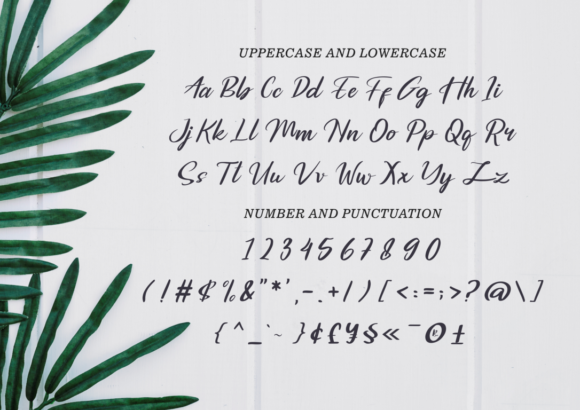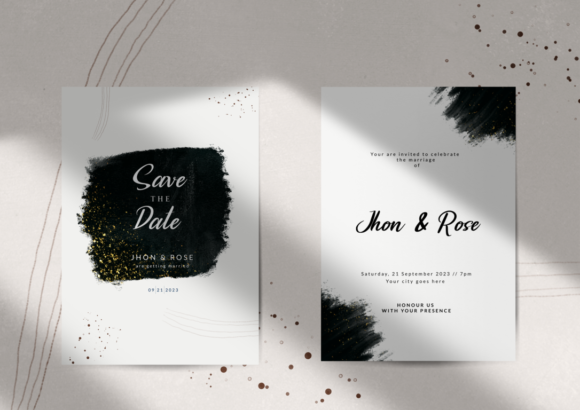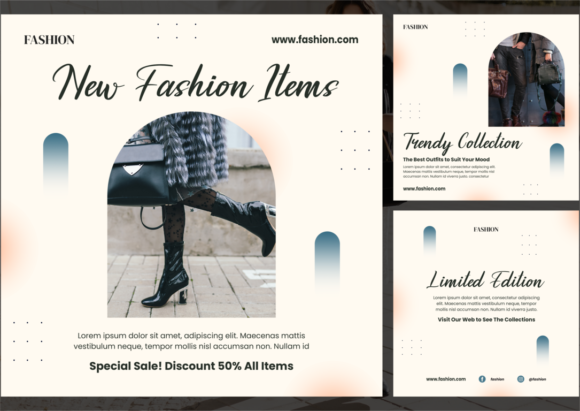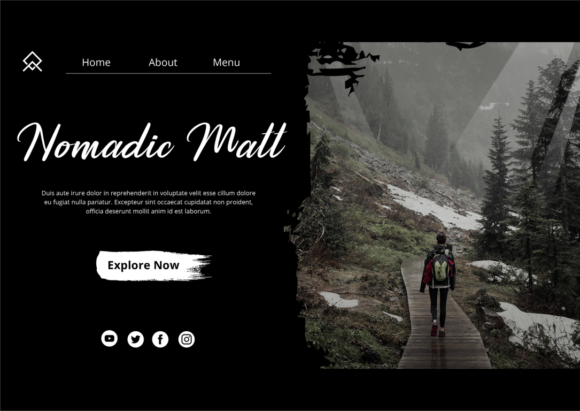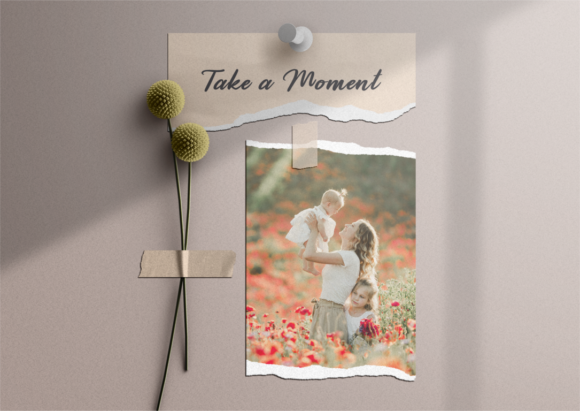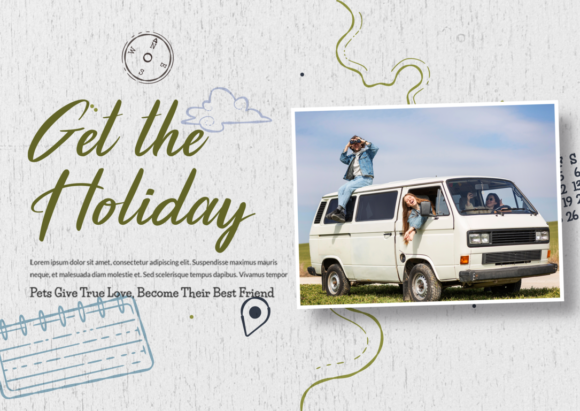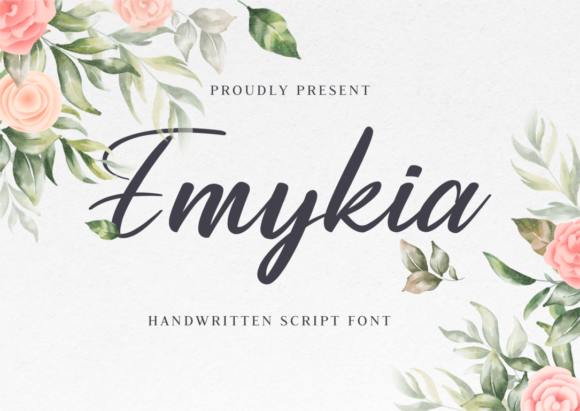
Introducing Emykia Font: The Epitome of Elegance and Sophistication
In the realm of typography, few fonts manage to strike a balance between classic elegance and modern flair. Emykia Font is one such gem that has captured the hearts of designers and crafters alike with its exquisite handwritten charm. This beautifully crafted font is not just a typeface; it’s an experience that elevates your projects to unprecedented heights of sophistication and style.
The Genesis of Emykia: A Masterful Blend of Tradition and Modernity
Emykia is the brainchild of meticulous designers who sought to create a font that embodies the essence of calligraphy while resonating with contemporary tastes. The result is a masterpiece that maintains classy calligraphic influences while feeling refreshingly modern. Each letterform in Emykia is a testament to the designers’ dedication to creating a typeface that is both timeless and trendy.
Why Emykia Stands Out: Key Features and Benefits
- Exquisite Handwritten Aesthetic: Emykia boasts a unique, handcrafted look that adds a personal touch to any project. Its elegant strokes and fluid connections make it perfect for designs that demand a high level of sophistication.
- Versatility: Whether you’re working on a wedding invitation, a luxury brand logo, or a high-end fashion magazine, Emykia’s versatility ensures it fits seamlessly into your design narrative.
- Contemporary yet Classic: Emykia strikes the perfect balance between modern design sensibilities and traditional calligraphic elegance, making it a font that can transcend trends.
- User-Friendly: Designed with the user in mind, Emykia is easy to read and works beautifully in both digital and print formats.
Applications of Emykia: Bringing Elegance to Life
The possibilities with Emykia are endless, limited only by your imagination. Here are a few ways designers and crafters can leverage this stunning font:
- Wedding and Event Stationery: Add a touch of elegance to wedding invitations, save-the-date cards, and event banners.
- Branding and Logos: Elevate your brand’s identity with a sophisticated logo that exudes luxury and class.
- Packaging: Stand out on store shelves with product packaging that boasts a refined, high-end look.
- Digital and Print Media: From magazine headlines to website headers, Emykia can add a dash of sophistication to any digital or print project.
How to Get the Most Out of Emykia
To truly fall in love with Emykia and make the most out of its capabilities, consider the following tips:
- Experiment with Pairings: Emykia pairs beautifully with a variety of fonts. Don’t be afraid to experiment with different combinations to find the perfect match for your project.
- Play with Weights: If Emykia comes in multiple weights, utilize them to create visual hierarchy and add depth to your designs.
- Adjust Kerning and Tracking: Fine-tune the spacing between letters and words to ensure your text is readable and visually appealing.
Conclusion: Elevate Your Designs with Emykia
Emykia Font is more than just a typeface; it’s a design statement that speaks of elegance, sophistication, and a keen eye for detail. Whether you’re a seasoned designer or a passionate crafter, Emykia offers the tools to bring your projects to the highest levels of aesthetic excellence. With its classy calligraphic influences and contemporary freshness, Emykia is poised to become your go-to font for projects that demand the very best. Fall in love with Emykia and witness your designs transform into stunning works of art that captivate and inspire.